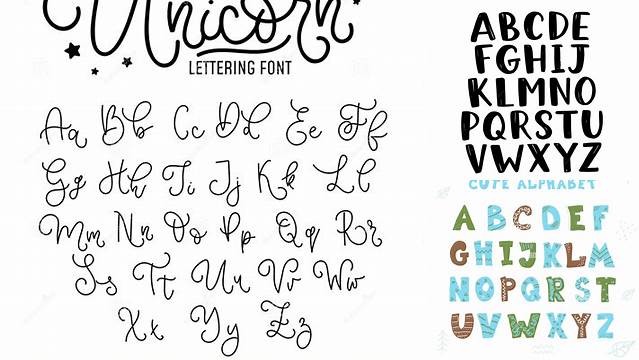
Cute Alphabet Fonts: Draw Your Own!
Hey guys! Ever wanted to add a personal touch to your notes, crafts, or digital art? One of the best ways to do that is by using cute alphabet fonts that you can draw yourself! Forget about boring, generic fonts – let's dive into the world of creating your own adorable lettering styles. This article will explore tons of ideas, tips, and tricks to help you design unique and eye-catching alphabets. Get ready to unleash your creativity and add some serious charm to your projects!
1. Bubble Letter Basics
Let's kick things off with a classic: bubble letters! Bubble letters are super versatile and fun to draw, making them a perfect starting point for creating cute alphabet fonts. The key to mastering bubble letters is to think about rounded shapes and smooth lines. Start by sketching the basic outline of each letter using circles or ovals as building blocks. Don't worry about perfection at this stage – just focus on getting the general form right. Once you have the outlines, thicken the lines to create that signature bubble effect. Remember to keep the curves soft and flowing for a playful look. Experiment with different thicknesses and overlaps to add your own unique touch. You can also add details like highlights and shadows to give your bubble letters extra dimension. Practice makes perfect, so grab a pencil and paper and start doodling! Whether you're a beginner or an experienced artist, bubble letters are a fantastic way to express your creativity and create charming alphabets. Plus, they’re incredibly satisfying to draw! Think about using bubble letters for birthday cards, posters, or even decorating your journal. The possibilities are endless, and the results are always adorable. Seriously, guys, once you get the hang of bubble letters, you’ll be amazed at how many variations you can create. Try experimenting with different spacing, sizes, and even adding patterns inside the letters. This is where you can really let your personality shine through and make your cute alphabet fonts truly unique.
2. Cursive Charm: Elegant Lettering
If you're aiming for a more sophisticated and elegant look, exploring cursive lettering is a must. Cursive fonts add a touch of class and flow to your projects, making them perfect for invitations, thank-you notes, or even adding a personal touch to your digital designs. When drawing cursive letters, focus on connecting each letter smoothly to the next, creating a seamless and flowing script. Pay attention to the loops, curves, and flourishes that define cursive style. Practice varying the thickness of your lines to add depth and interest to your lettering. Thin strokes can create a delicate feel, while thicker strokes can add emphasis and boldness. Don't be afraid to experiment with different styles of cursive – from traditional calligraphy-inspired scripts to more modern and whimsical versions. Remember, the key to beautiful cursive is practice and patience. The more you practice, the more natural and fluid your lettering will become. Plus, mastering cursive is a super useful skill that can elevate your handwriting and your artistic projects. Think about using cursive fonts for wedding invitations, personalized stationery, or even adding a handwritten touch to your website or blog. There’s something incredibly charming about cursive lettering, and it’s a fantastic way to add a touch of elegance to your designs. So, grab your favorite pen and paper, and start practicing those loops and swirls. You’ll be amazed at the beautiful alphabets you can create with a little bit of effort and creativity. Remember, guys, even small variations in your cursive style can make a big difference. Try experimenting with different angles, heights, and even adding decorative elements like swirls and dots to make your cursive letters truly unique and eye-catching.
3. Serif Sensations: Classic and Cute
Serif fonts are characterized by the small decorative strokes, or serifs, that extend from the main strokes of the letters. These fonts often have a classic and traditional feel, but they can also be adapted to create cute and whimsical designs. When drawing serif letters, pay close attention to the serifs themselves – they are what define the font's character. Experiment with different shapes and sizes of serifs to achieve the look you want. For a more traditional feel, use classic serifs with a balanced and symmetrical appearance. For a cuter and more playful look, try using rounded or exaggerated serifs. You can also add details like curves and flourishes to make your serif letters even more unique. Think about incorporating serif fonts into your projects where you want to convey a sense of elegance and sophistication, but with a touch of charm. They’re perfect for book titles, headings, or even creating a vintage-inspired look. Drawing serif letters can be a bit more challenging than drawing sans-serif letters, but the results are well worth the effort. The added detail and structure of serifs can really elevate your lettering and give it a polished and professional look. Remember, guys, the key to mastering serif fonts is to practice drawing the serifs accurately and consistently. Pay attention to the spacing between the letters and the overall balance of the font. With a little bit of practice, you’ll be creating stunning serif alphabets that add a touch of classic cuteness to any project. And don’t forget, you can always mix and match serif and sans-serif fonts to create interesting and dynamic designs. The possibilities are endless!
4. Sans-Serif Simplicity: Modern and Playful
Sans-serif fonts, as the name suggests, are fonts without serifs – those little decorative strokes at the ends of the letters. This gives them a clean, modern, and often more playful feel. Sans-serif fonts are incredibly versatile and can be used in a wide range of projects, from posters and logos to websites and social media graphics. When drawing sans-serif letters, focus on clean lines and simple shapes. The key to a good sans-serif font is consistency in the stroke thickness and spacing between letters. Experiment with different weights and widths to achieve the look you want. A bold sans-serif font can make a strong statement, while a lighter weight font can feel more delicate and airy. You can also add your own personal touch by incorporating subtle curves or angles into your letterforms. Think about using sans-serif fonts when you want a modern and approachable look. They’re perfect for projects where clarity and readability are important, but you also want to convey a sense of fun and creativity. Drawing sans-serif letters can be a great way to develop your lettering skills because it forces you to focus on the fundamental shapes and proportions of the letters. Remember, guys, even though sans-serif fonts are simple, they can be incredibly expressive. Try experimenting with different styles and variations to create a sans-serif alphabet that truly reflects your personality. You can also combine sans-serif fonts with other font styles, like serif or script fonts, to create interesting and dynamic designs. The key is to have fun and let your creativity flow! And don’t be afraid to break the rules and try something new. That’s where the magic happens!
5. Funky Fonts: Quirky and Unique Styles
Ready to get a little wild and funky? This is where you can really let your creativity shine! Funky fonts are all about breaking the rules and creating unique and eye-catching letterforms. Think outside the box and experiment with unconventional shapes, angles, and proportions. Try distorting the letters, adding unexpected details, or even combining different styles into one alphabet. The key to a great funky font is to make it memorable and expressive. Don't be afraid to be bold and playful – this is your chance to create something truly one-of-a-kind. Think about incorporating funky fonts into projects where you want to make a statement or add a touch of personality. They’re perfect for posters, flyers, social media graphics, or any project where you want to stand out from the crowd. Drawing funky fonts can be a great way to challenge yourself and push your creative boundaries. It forces you to think differently about letterforms and to come up with new and innovative ways to express yourself. Remember, guys, there are no rules when it comes to funky fonts! The more creative and unconventional you are, the better. Try experimenting with different textures, patterns, and even adding illustrations to your letters. You can also draw inspiration from different eras and styles, like retro, psychedelic, or even graffiti art. The possibilities are endless! And don’t forget to have fun – that’s the most important part. So, grab your pens and pencils and get ready to create some truly funky and unforgettable alphabets. You’ll be amazed at what you can come up with when you let your imagination run wild!